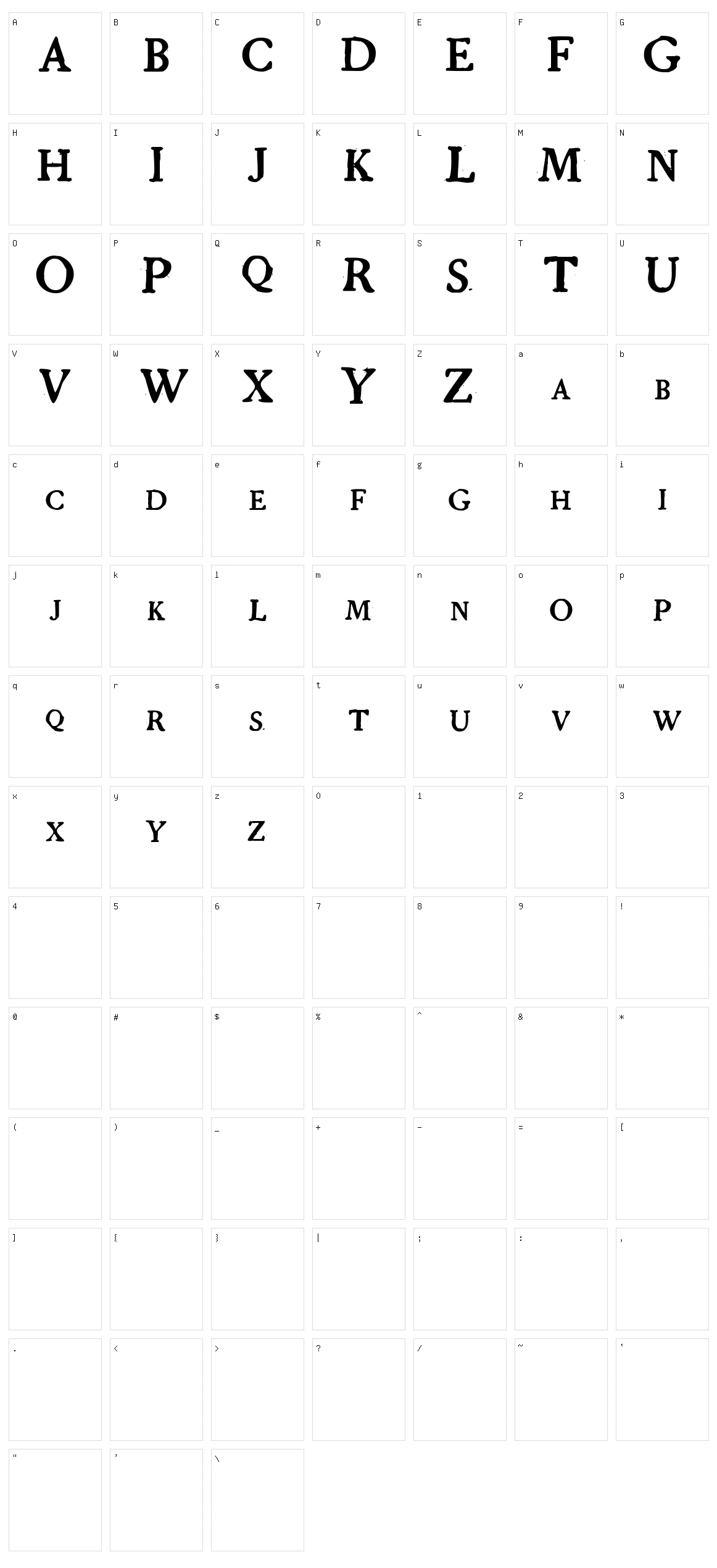
GRANDJEAN PW
Grandjean foi um importante tipografo frances do século XVII. Esta fonte inaugura uma série de fontes históricas de caráter latino que a Intellecta Design e Paulo W comecam a publicar em Janeiro de 2006. Veja detalhes a partir de janeiro de 2006 no site da Intellecta
GRANDJEAN PW
typeface inspired in the types of Grandjean, french punchcutter and typograph from the XVII century. this font inaugurates one serie of typefaces inspired in historical latin forms and types who will displayed in the Intellecta`s site on january 2006